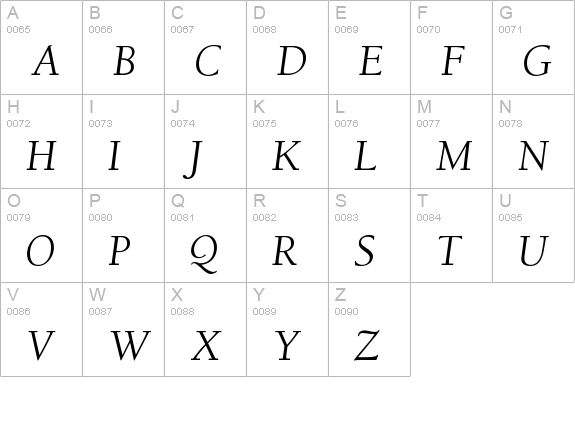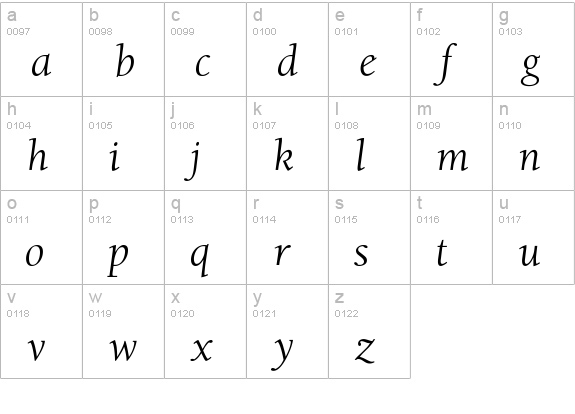
BerkeleyOldstyleBookItalic Font Details
The Berkeley Oldstyle Book Italic font exudes elegance and sophistication with its timeless design. Its graceful and slanted letters convey a sense of refinement, making it perfect for projects that call for a touch of class. Whether used in invitations, branding, or editorial design, this font adds a touch of sophistication to any project. And the best part? Berkeley Oldstyle Book Italic is available for free download at FontsMarket.com. Embrace the beauty and versatility of this stunning font without any cost, adding a touch of elegance to your designs with ease. Don't miss out on this fantastic opportunity to enhance your projects with the timeless charm of Berkeley Oldstyle Book Italic. Download it now and elevate your designs to new heights.